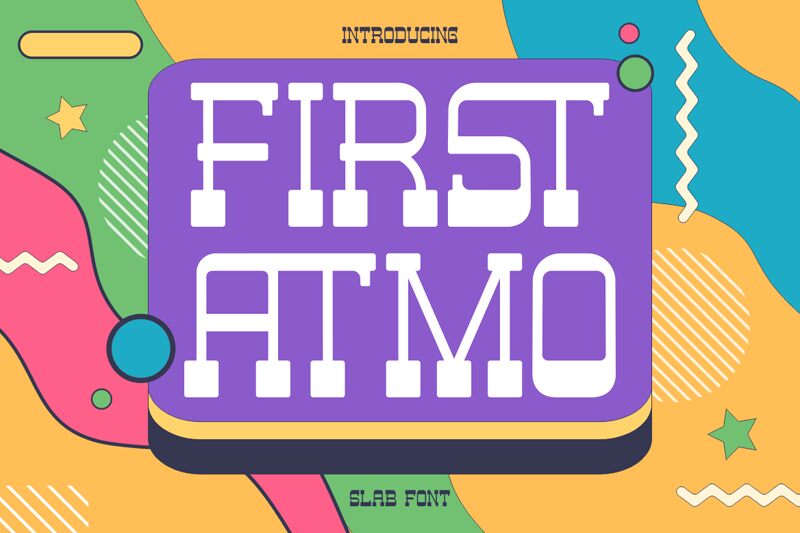
First Atmo, from Shanaf Studio, is a free Western display font with the blunt swagger of old wood-type posters. The letters are heavy and squared off, with slabby feet, deep notches, and blocky cut-ins that give the caps a branded, saloon-sign rhythm rather than a polished revival feel.
That rough, poster-first voice makes it a natural pick for packaging, bar and barbecue branding, event flyers, title cards, and short cover lines where a free font needs to feel sturdy and period-tinged. It also works well for badges and monograms, because the wide, chunky shapes lock together fast and keep their frontier character even in just a few letters.